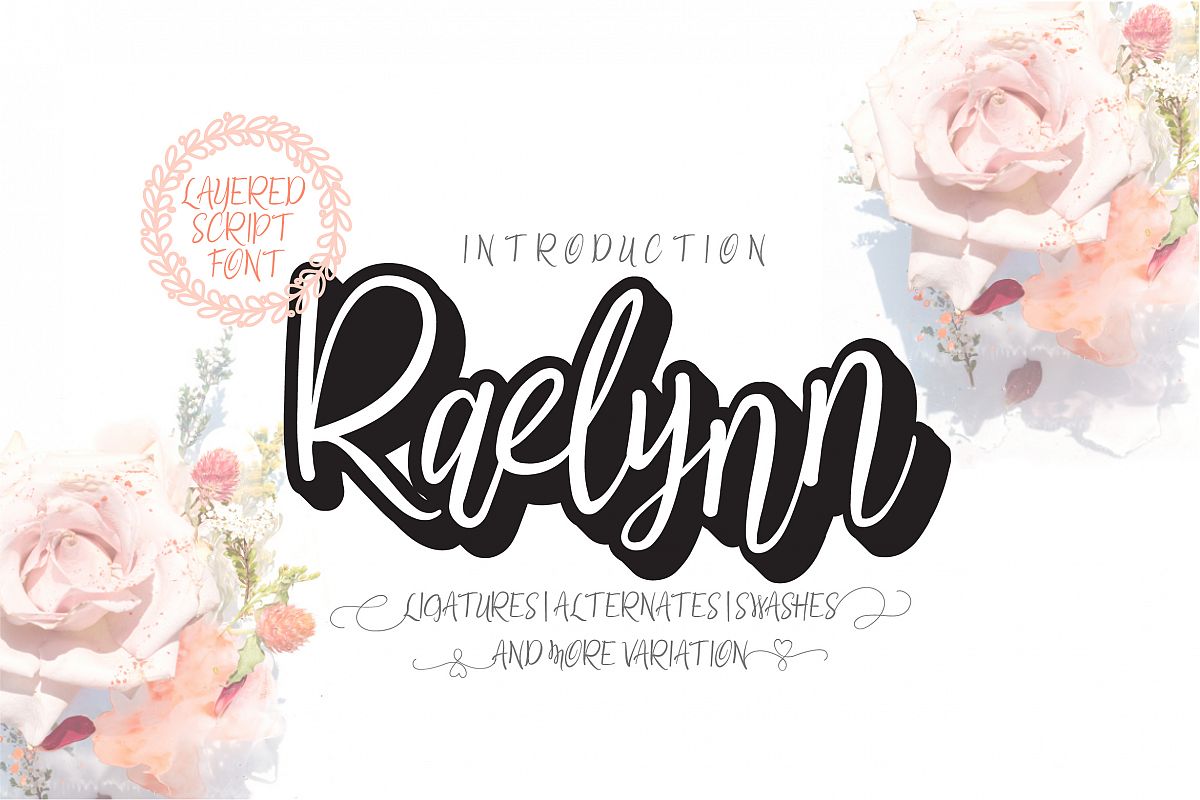
Raelynn Regular | modern script layered
Introducing Raelynn Regular, a fun hand-lettering style typeface with TONS of alternates!
This typeface started off large, and kept getting larger, until I'd created a minimum of EIGHT different options for each letter! Every letter comes in: standard uppercase, standard lowercase, alternate uppercase, alternate lowercase, small caps, uppercase entry swash, lowercase entry swash, and lowercase contextual alternates, ligatures, and layered
The letters can be mixed and matched to create the look of a hand-lettered piece. Check out the example images -- all characters on the photo images are included in Raelynn Regular!
Raelynn Regula rincludes:
-   More 416 glyphs total
-   Accented characters for multiple language support
-    Additional Swash
-    Coded OpenType features: stylistic alternates, small caps, swashes, superscript, subscript,contextual alternates and ligatures
-  19 lowercase letter ligatures (bb, cc, dd, ee, ff, gg, ll, mm, nn, oo, pp, rr, ss, tt, zz, th, sh, fl, ft)